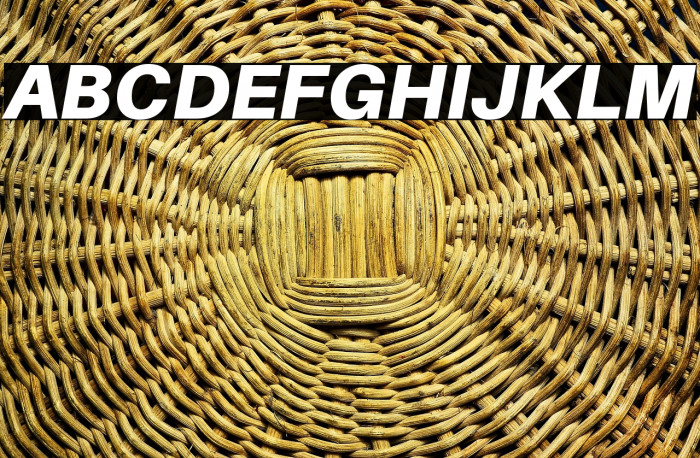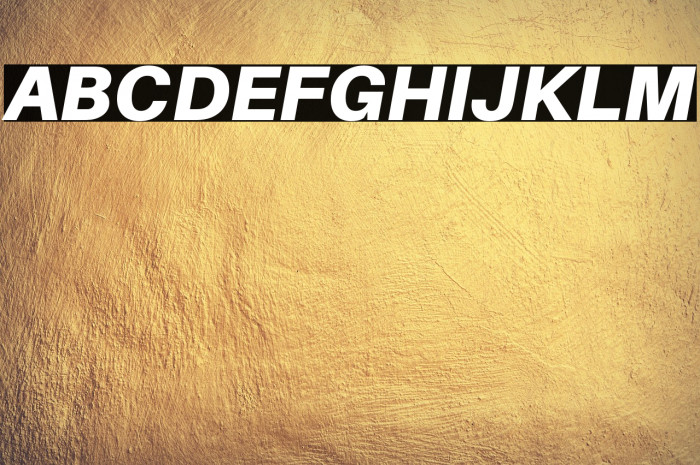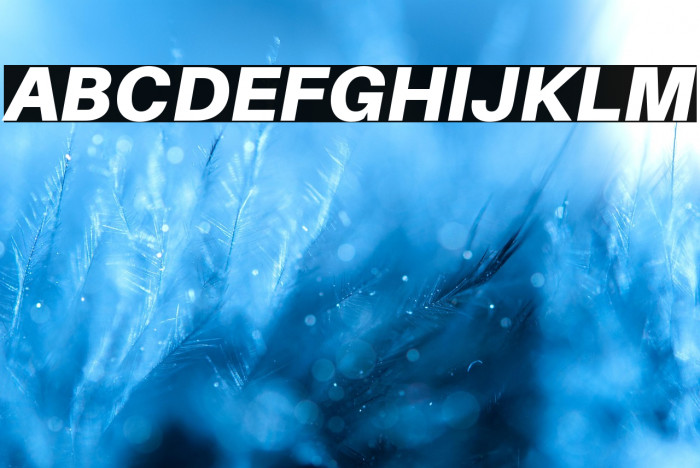
Aileron Black Italic Font
Aileron Black Italic Description
This font features a bold and dynamic style with a strong italic slant, giving it a sense of movement and urgency. The characters are thick and robust, providing excellent readability and impact. The uppercase and lowercase letters maintain a consistent weight, ensuring uniformity across text. The numerals are clear and distinct, while the special characters are well-defined, making this font versatile for various applications. Its modern design is suitable for contemporary projects, offering a sleek and professional appearance.
| Use Case | Headlines, Logos, Advertising |
| Proposed Projects | Ideal for branding, advertising, headlines, and digital media where a strong, modern presence is needed. |